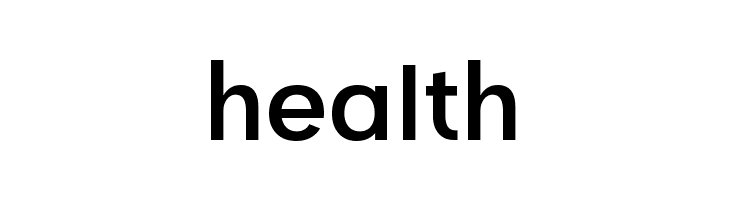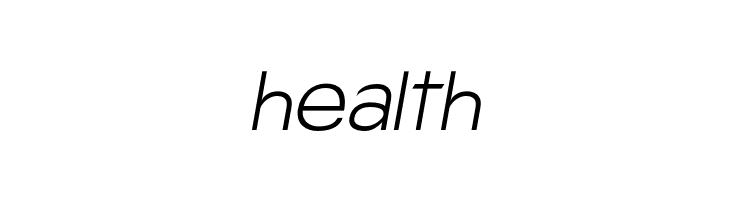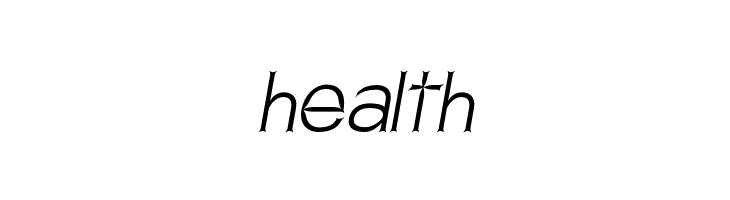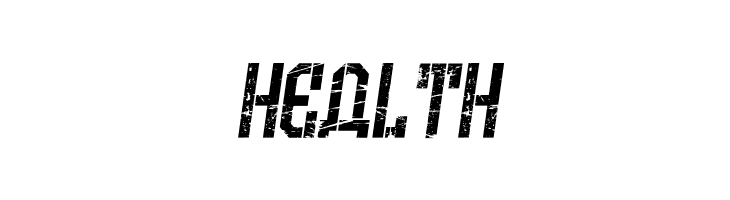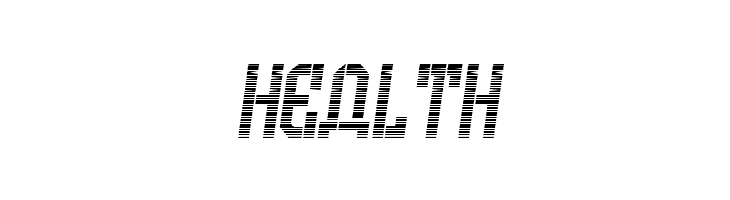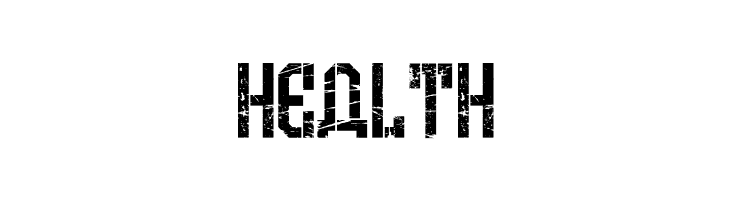
A modern, angular serif font with a futuristic and bold design.
A modern, italic font with sleek, elongated characters and a dynamic style.
A bold, rugged font with a hand-drawn, vintage style.
A modern, italicized font with a gradient effect and dynamic style.
A modern, striped font with a dynamic, futuristic design.
A bold, italicized grunge font with a distressed texture.
A bold, distressed font with a rugged, grunge texture.